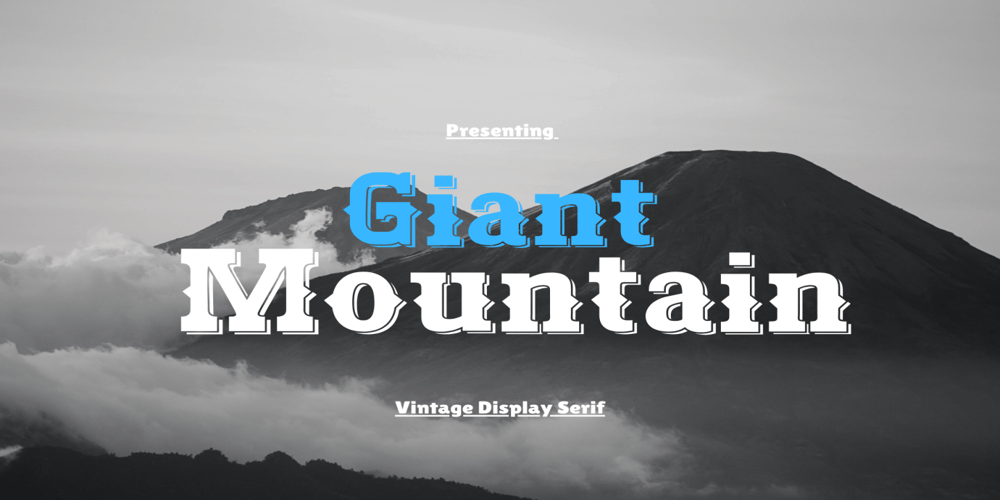
Giant Mountain
Giant Mountain font
Giant Mountain Font Family was designed by Alexander Branczyk and published by Adita Fonts. Giant Mountain contains 1 styles and family package options. Giant Mountain’ is characterized by its bold and strong lined appearance, with letters in cowboy style design. This font is a perfect choice for vintage or old-school themes. You can use this font for many purposes such as vintage logos, mugs, embroidery, prints, displays, short text, packaging, cards, emblems, signage, and many more